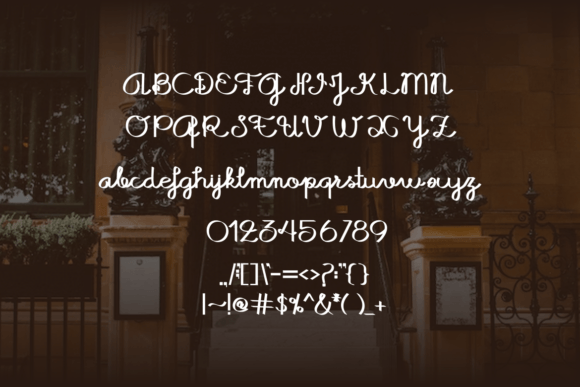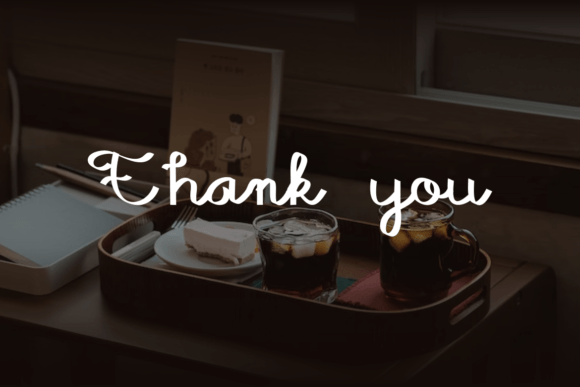
Introduction to Fengand Font
Fengand is an elegant script font.
Elevate your designs with Fengand font – where handwriting meets innovation Let your imagination flow freely and let your words come to life in a way that’s uniquely yours.
Key Features of Fengand Font
Why Choose Fengand Font?
Fengand Font offers exceptional quality and versatility, making it a valuable addition to your design toolkit. Whether you’re creating for personal projects or commercial use, Fengand Font delivers professional results.